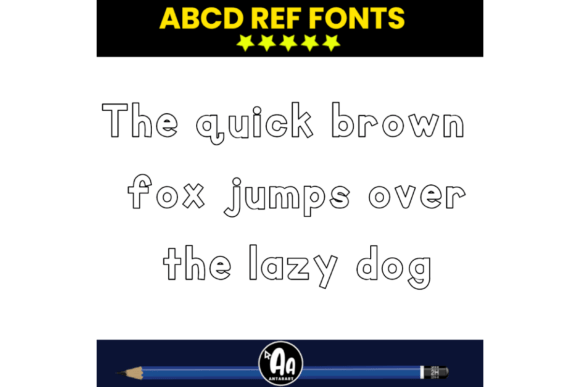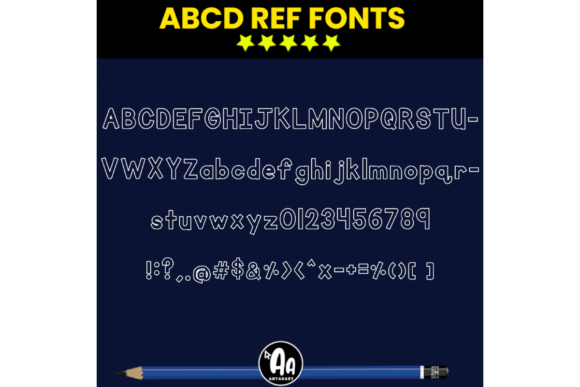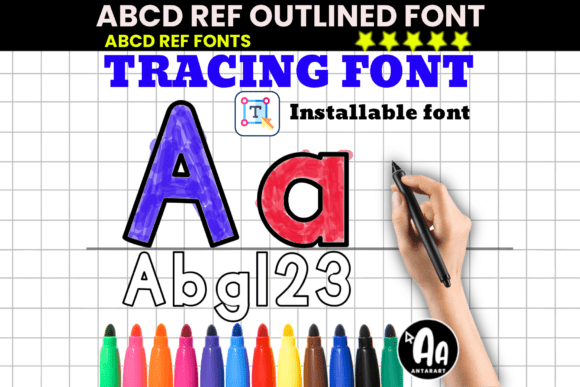
Introducing the Bold Outlined Tracing Font: A Perfect Tool for Early Literacy and Motor Skill Development
Are you a teacher, parent, or designer looking for a fun and engaging way to help kids develop their early literacy and motor skills? Look no further than the Bold Outlined Tracing Font, also known as the ABCD REF Outlined Font or Alphabet Letters Formation Font. This versatile font is perfect for coloring and tracing activities, featuring hollow letters with clean edges that invite kids to fill them in.
Key Features of the Bold Outlined Tracing Font
- Uppercase, Lowercase, and Number Characters: The font includes a comprehensive set of uppercase and lowercase letters, as well as number characters (0-9), allowing kids to practice complete writing tasks.
- Clean Edges: The font features clean and precise edges, making it easy for kids to trace and color.
- Traditional School Handwriting Style: The font follows the traditional school handwriting style, helping kids learn the correct letter formation and handwriting techniques.
- Common Symbols: The font includes common symbols, allowing kids to practice writing tasks in a fun and interactive way.
Benefits for Early Literacy and Motor Skill Development
The Bold Outlined Tracing Font is specifically designed to support early literacy and motor skill development in kids. By using this font, kids can:
- Develop Fine Motor Skills: Tracing and coloring the hollow letters helps kids develop their fine motor skills, hand-eye coordination, and dexterity.
- Learn Letter Formation: The font’s traditional school handwriting style helps kids learn the correct letter formation and handwriting techniques.
- Practice Writing: The font’s comprehensive set of characters allows kids to practice complete writing tasks, helping them develop their writing skills.
Ideas for Using the Bold Outlined Tracing Font
The Bold Outlined Tracing Font is a versatile tool that can be used in various ways to support early literacy and motor skill development. Here are some ideas:
- Worksheets: Create engaging worksheets with tracing and coloring activities that help kids develop their fine motor skills and learn letter formation.
- Classroom Displays: Use the font to create interactive classroom displays, posters, and bulletin boards that showcase kids’ work and promote learning.
- Posters: Design eye-catching posters that feature the font’s bold and outlined characters, helping kids learn letter formation and develop their writing skills.
- Interactive Activities: Create interactive activities, such as games and puzzles, that use the font to help kids develop their fine motor skills and learn letter formation.
- Printable Practice Sheets: Use the font to create printable practice sheets that help kids develop their writing skills and learn letter formation.
- Bulletin Board Letters: Use the font to create bulletin board letters that are easy to read and recognize, helping kids develop their reading skills.
- Classroom Décor: Use the font to create engaging classroom decor, such as alphabet charts and posters, that promote learning and development.
- Editable Student Name Template: Use the font to create editable student name templates that help kids develop their writing skills and learn letter formation.
| Font Name | Bold Outlined Tracing Font |
| Author | AntarArt |
The Bold Outlined Tracing Font is a valuable tool for teachers, parents, and designers who want to support early literacy and motor skill development in kids. With its comprehensive set of characters, clean edges, and traditional school handwriting style, this font is perfect for creating engaging and interactive learning materials. Whether you’re creating worksheets, classroom displays, posters, or interactive activities, the Bold Outlined Tracing Font is an excellent choice.